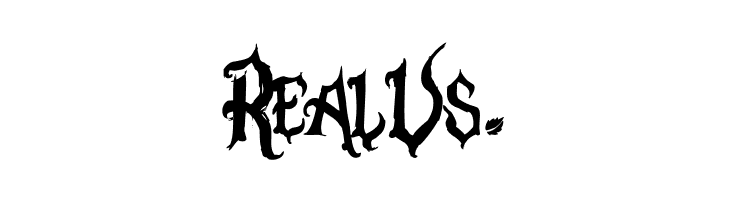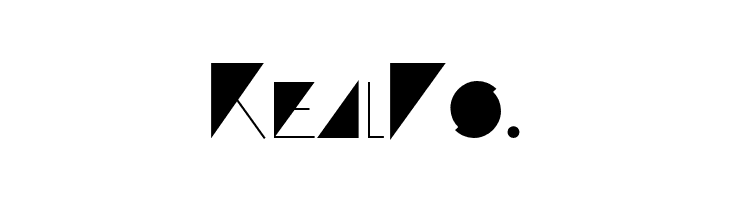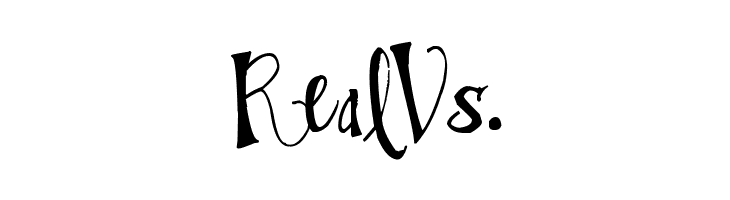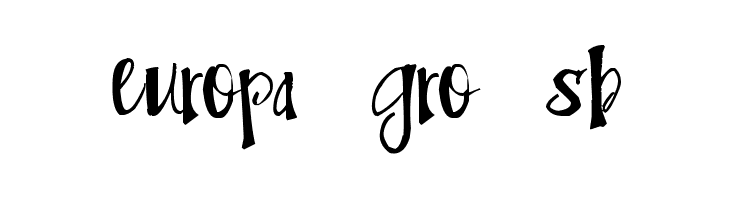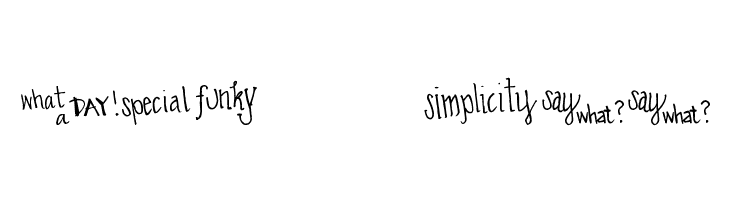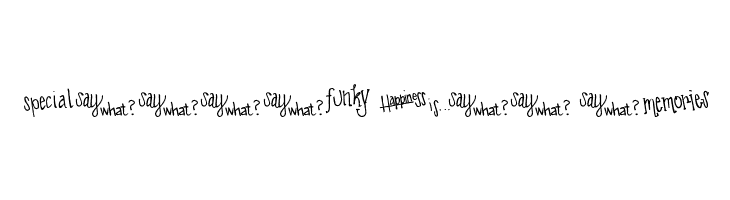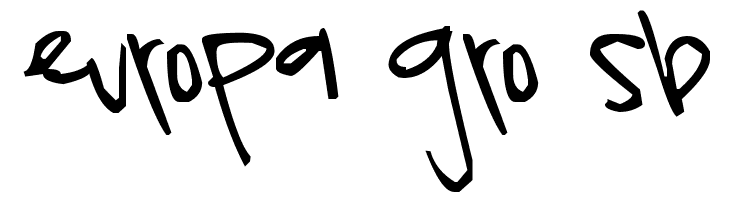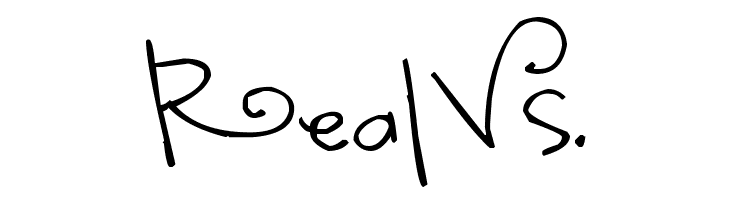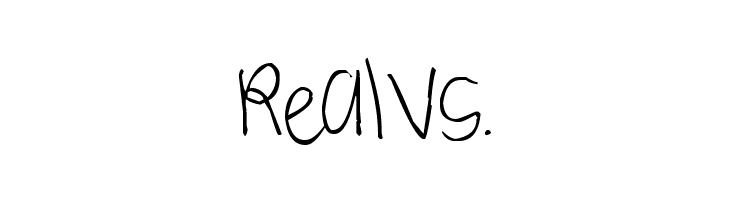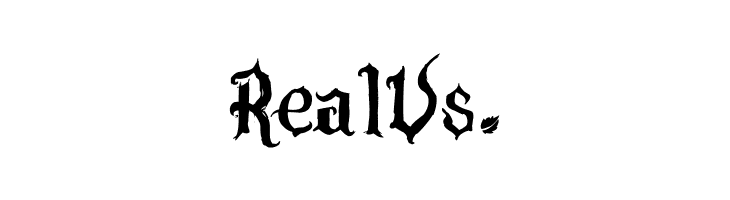
( Pankaj by https://hindifonts.org/ )
A clear and balanced Gurmukhi script font with consistent stroke width.
( Imam Zakaria )
A playful, double-outline font with looping, swirling characters.
( Fonts by Davy Meykens - davymeykens.deviantart.com )
A bold, grunge-style font with splatters and drips for an edgy look.
( Fonts by Rodrigo German - RASDESIGN )
A playful collection of parody logos with bold, humorous designs.
( Fonts by Juan Casco - www.juancasco.net )
A bold, gothic blackletter font with intricate detailing and sharp, angular strokes.
( Fonts by Juan Casco - www.juancasco.net )
A bold, gothic-style font with intricate, angular detailing.
( Béla Frank - belafrank.com )
A narrow, elongated font with a modern and artistic style.
( Fonts by LetterStuff Typefoundry )
A playful, handwritten-style font with bold, rounded characters.
A playful, handwritten font with bold, rounded strokes and a casual style.
( Fonts by Paul - viciousink.net )
An ornate and decorative script font with elegant swirls and flourishes.
( Fonts by Paul - viciousink.net )
A whimsical, decorative font inspired by vintage circus posters.
( Fonts by Paul - viciousink.net )
A decorative, gothic-style font with intricate flourishes and high contrast.
( Fonts by Paul - viciousink.net )
An ornate, decorative script font with intricate swirls and flourishes.
A whimsical, handwritten font with playful and dynamic strokes.
A whimsical, hand-drawn font with a playful and creative style.
A playful, casual handwritten font with a dynamic and informal style.
A playful, curly handwritten font with a whimsical and energetic style.